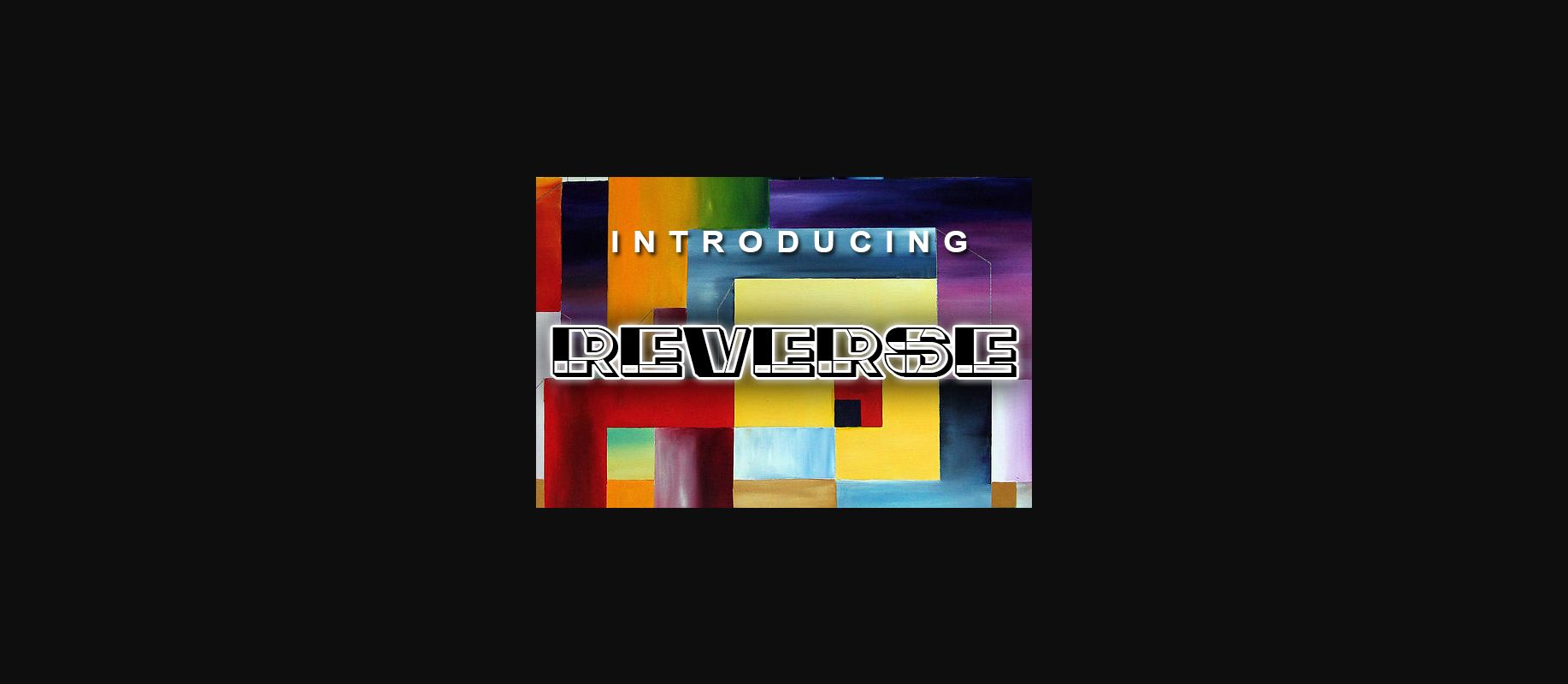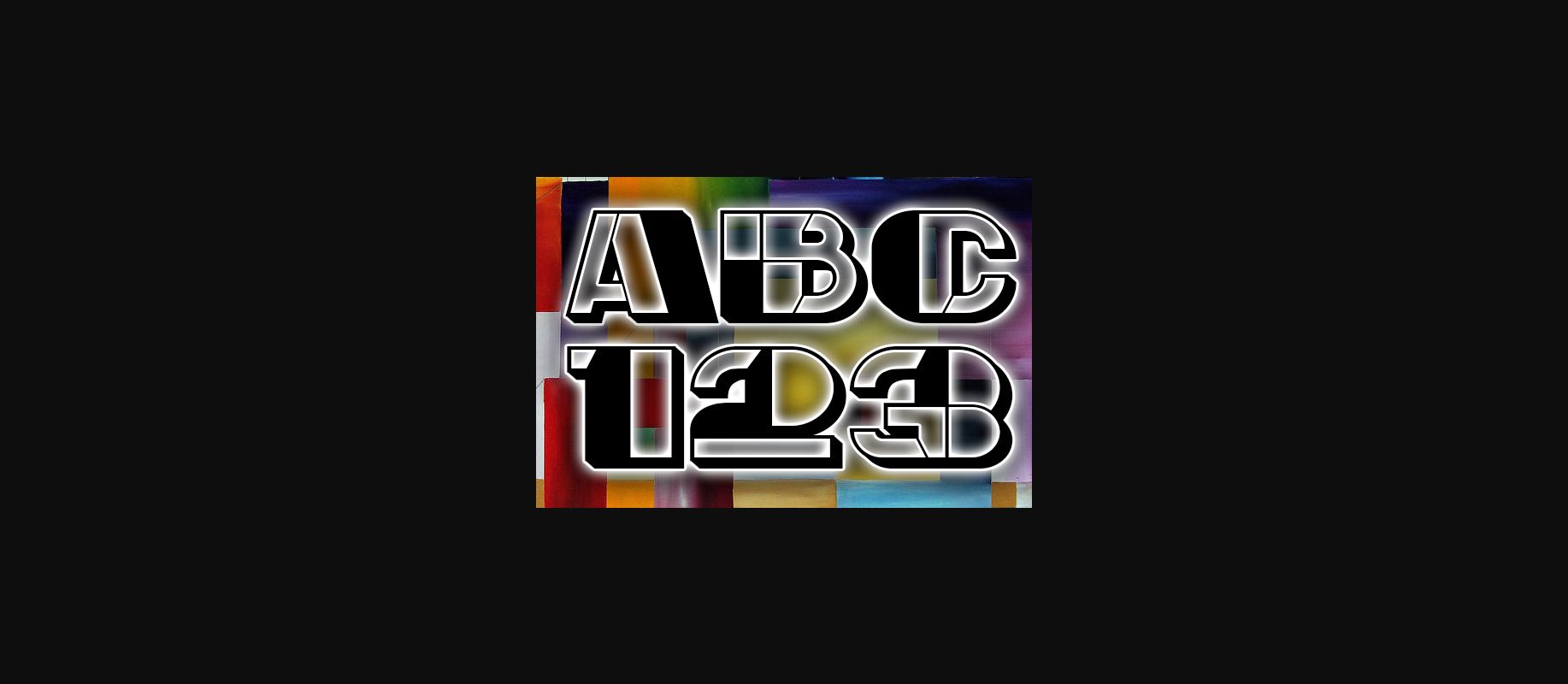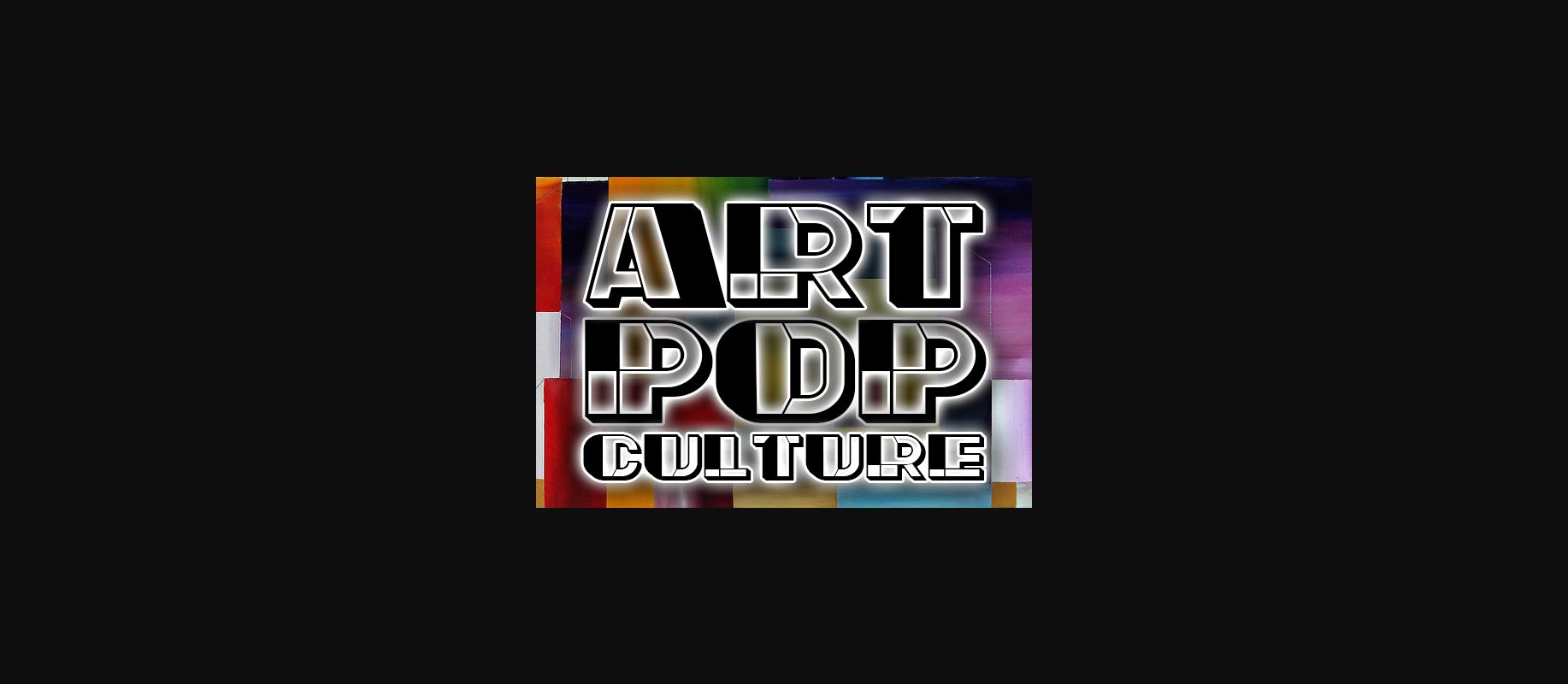
About Reverse Font
Reverse is a cute and unique decorative font. Whether it’s for web, print, moving images or anything else – Reverse will look spectacular.